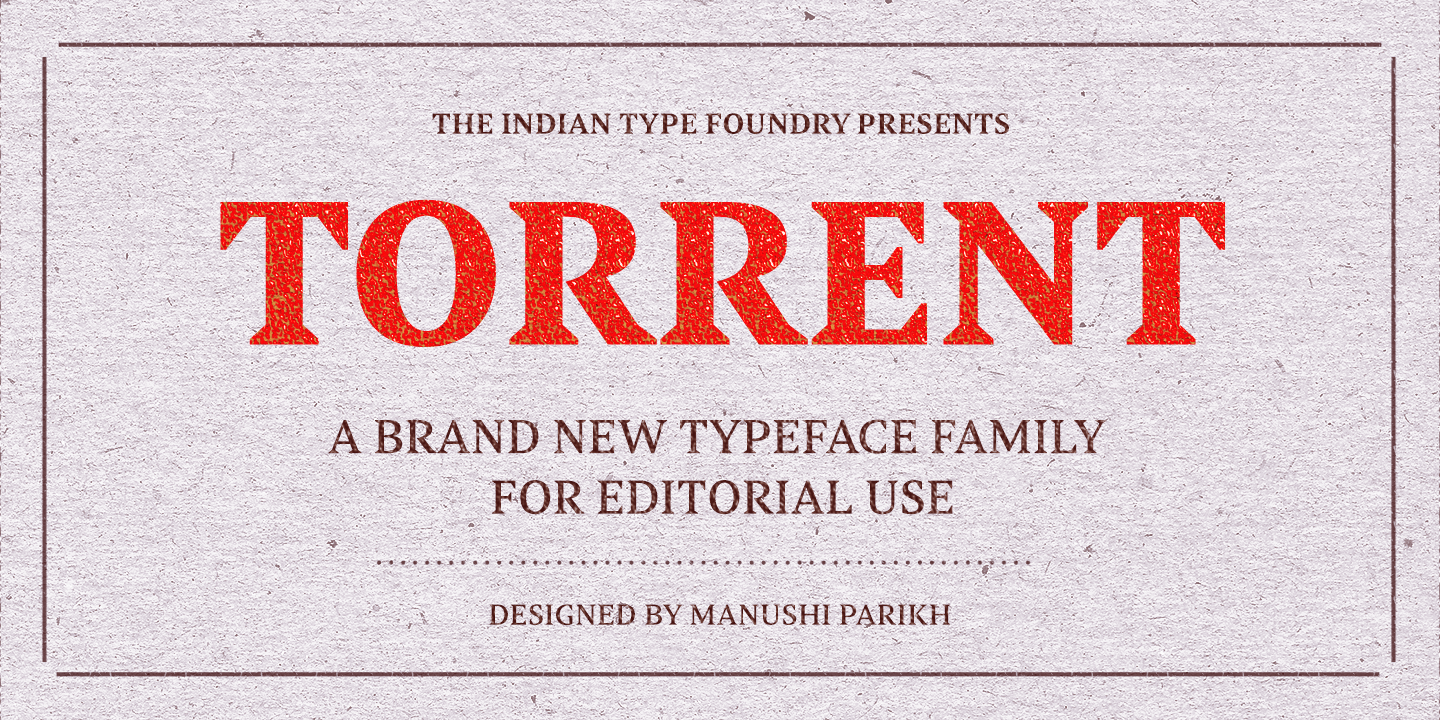
Torrent Font is a dynamic and forceful typeface, perfect for designs that aim to convey motion, power, or a sense of overwhelming energy. Its often sharp angles, bold strokes, and sometimes distressed textures make it an excellent choice for action movie titles, extreme sports branding, gaming graphics, and heavy music album covers. Imagine it crashing across a thriller book cover, providing an intense visual for a high-energy concert poster, or adding a rugged edge to adventure travel advertisements. This font is also superb for event promotions demanding impact, dramatic headlines, and any project where an aggressive, unyielding, and visually explosive identity is key. It doesn't just display text; it unleashes a torrent of visual impact, demanding immediate attention.
What makes Torrent Font so exciting is its ability to instantly communicate a sense of raw power and unbridled force. It possesses a distinctive, almost chaotic energy, with letterforms that suggest movement, speed, or even destruction, making it incredibly effective at creating a high-octane atmosphere. This unique personality makes it a fantastic choice for designers looking to infuse their projects with intensity and an unforgettable visual punch. It’s a font that speaks with an uncompromising voice, making it ideal for brands and content creators who want to convey strength, excitement, and a powerful, adrenaline-fueled aesthetic. Its aggressive appeal can make any message feel more urgent and undeniably impactful.
The Torrent Font family, given its often artistic and specialized design, might not always feature the extensive weight variations seen in more traditional typefaces. However, it typically offers different styles or complementary elements that enhance its unique aesthetic and provide creative flexibility. You might find variations such as:
Torrent Regular
Torrent Bold (for an even more dominant presence)
Torrent Distressed (if designed with a grunge or weathered effect)
Torrent Outline
Torrent Rough (for a textured, unrefined look)
These variations empower designers to maintain a consistent thematic aesthetic while adding depth and visual punch to their compositions. The availability of Torrent Font Free Download offers an excellent opportunity to explore its unique intensity and commanding presence for your personal design ventures.